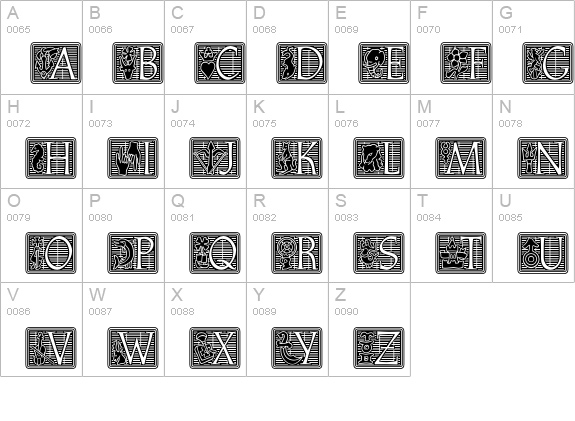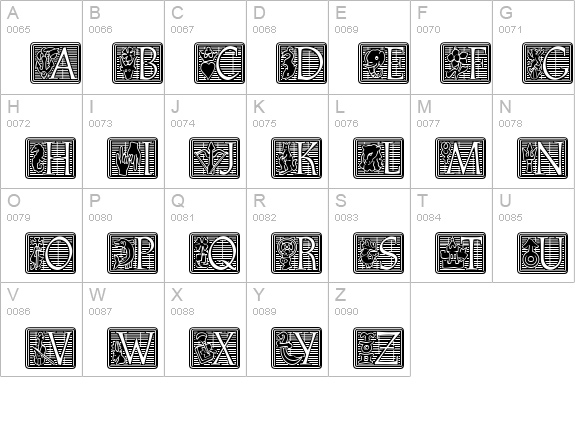
Athenaeum Initial Negative Std Font Details
Athenaeum Initial Negative Std font is a timeless and elegant typeface that exudes sophistication and charm. With its delicate serifs and classic letterforms, this font is perfect for adding a touch of refinement to any design project. The negative space within the letters creates a unique and eye-catching look, making Athenaeum Initial Negative Std stand out from the crowd. What's even better is that this exquisite font is available for free download at FontsMarket.com. Whether you're working on a branding project, wedding invitation, or any other creative endeavor, Athenaeum Initial Negative Std is sure to elevate your design to the next level. Don't miss out on this opportunity to add a touch of luxury to your work with this stunning font. Download Athenaeum Initial Negative Std today and let your creativity shine!